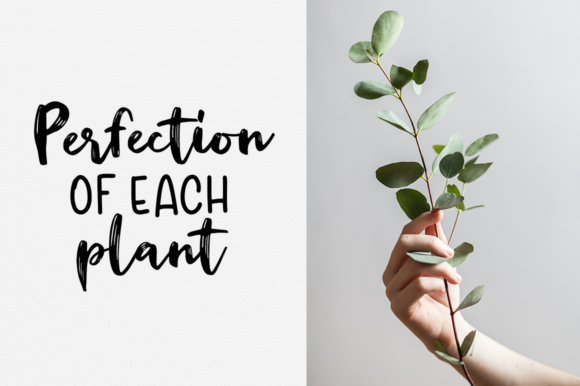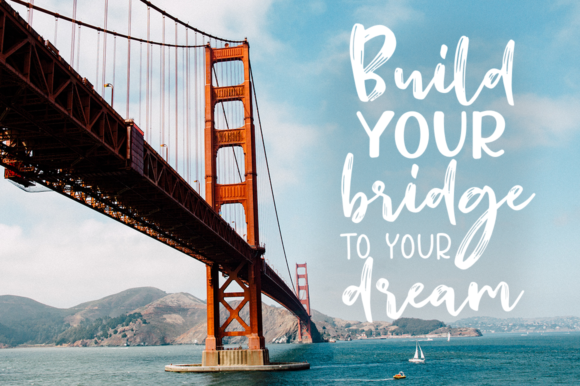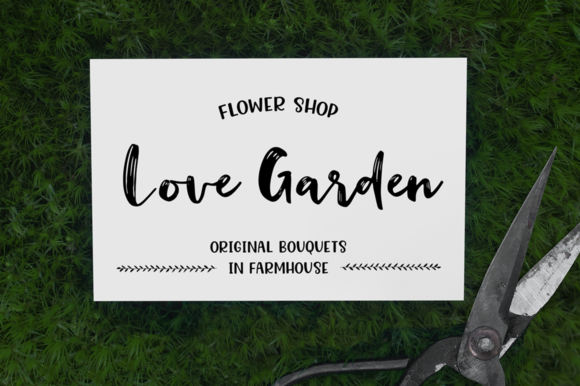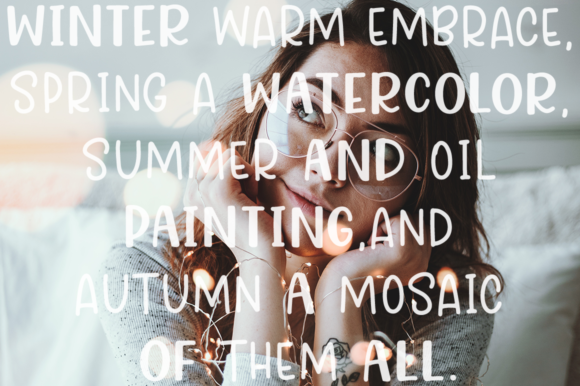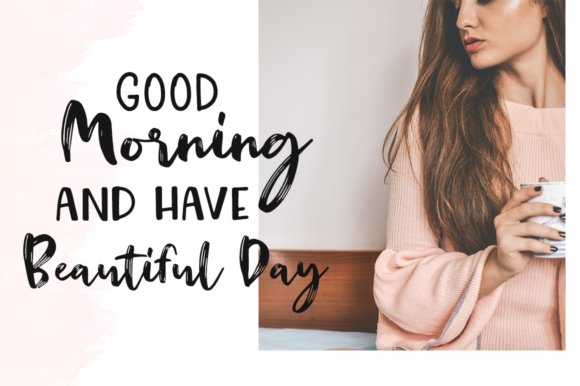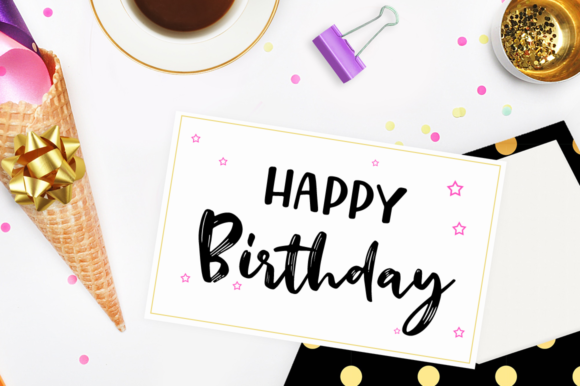
Introduction to Secret Room Duo Font
Have you ever been working on a creative project, and the perfect font just slipped through your fingers? You know, that one font that could elevate your design from good to great? For designers, finding the right font can be a game-changer. And that’s exactly what the Secret Room Duo Font offers – a high-quality, versatile font duo that can add a touch of whimsy and sophistication to any design.
As a design resource, the Secret Room Duo Font is a treasure trove of creative possibilities. With its fun brush style and transparent background, this font is perfect for adding a playful touch to your designs. Whether you’re working on a wedding invitation, a blog post, or a marketing campaign, the Secret Room Duo Font is an excellent choice. And the best part? It’s available for free download, making it an invaluable asset for designers of all levels.
In this article, we’ll dive deeper into the world of the Secret Room Duo Font, exploring its unique features and creative applications. So, let’s get started and discover why this font duo is a must-have for any designer’s toolkit.
Key Features of Secret Room Duo Font
- Designed as a versatile design resource for use in various creative projects, from branding to publishing.
- Unique, stylish design elements and characters for adding a touch of sophistication to any design or project.
Honest Review: Secret Room Duo Font
As a designer, I’m always on the lookout for high-quality design resources that can elevate my creative projects. The Secret Room Duo Font is one such resource that caught my attention.
What works well: ✨ The Secret Room Duo Font is a beautiful, modern script font that features a transparent background, making it perfect for designing on any background. The font is also highly customizable, allowing me to adjust the size, color, and style to suit my project’s needs.
Here are some of the key features that I like about the Secret Room Duo Font:
- Transparent background for easy design
- Customizable font size, color, and style
However, I do have a few limitations with the font: ⚠️ While the font is highly customizable, it can be a bit finicky to work with, especially when it comes to smaller text sizes. Additionally, the font may not be suitable for projects that require a more traditional or formal look.
Overall, I’m impressed with the Secret Room Duo Font and would highly recommend it to designers looking for a high-quality, modern script font for their creative projects.
The Secret Room Duo Font is perfect for a variety of creative projects, including logos, business cards, and marketing materials. Its high-quality design and transparent background make it an ideal choice for designers looking to add a professional touch to their work.
Is the Secret Room Duo Font suitable for use on a transparent background?
Yes, the Secret Room Duo Font is designed to work well on a transparent background. The font’s transparent background allows it to blend seamlessly with other design elements, making it perfect for use in logos, icons, and other design projects that require